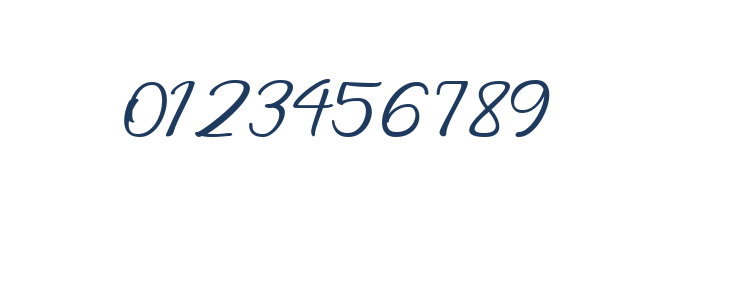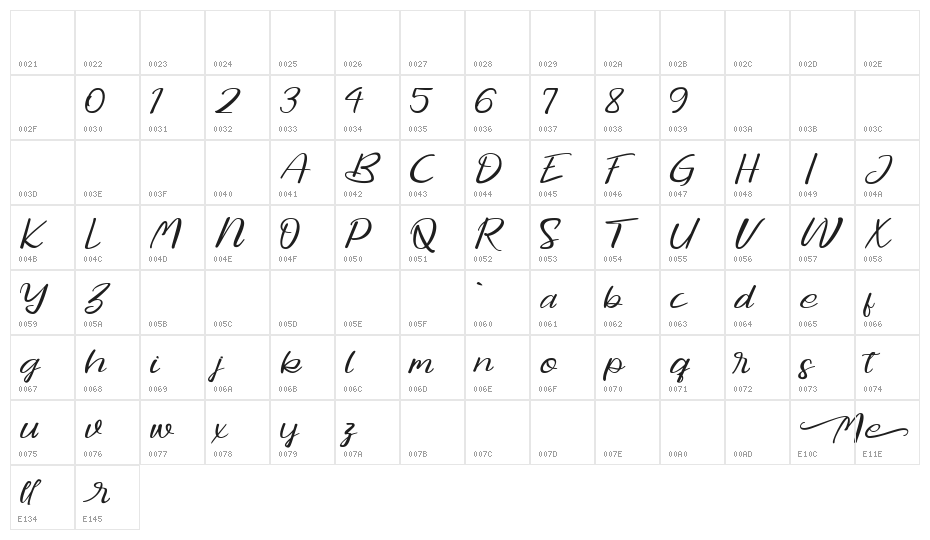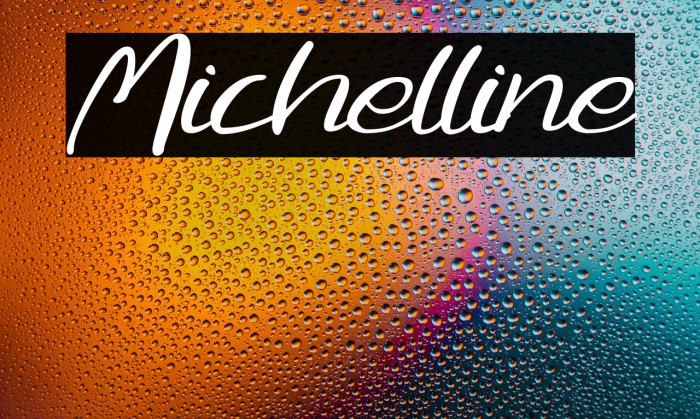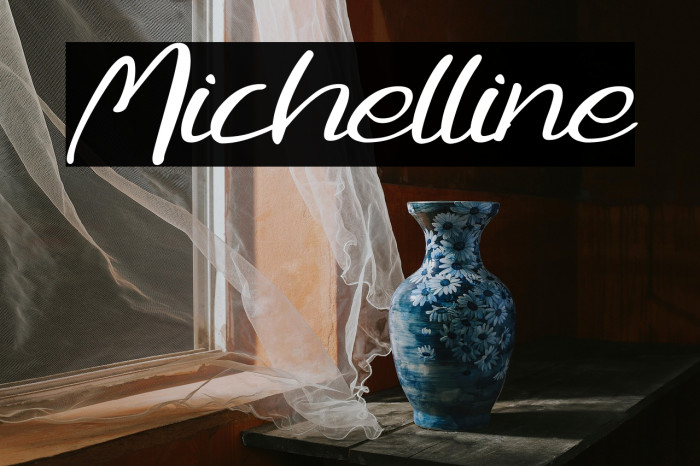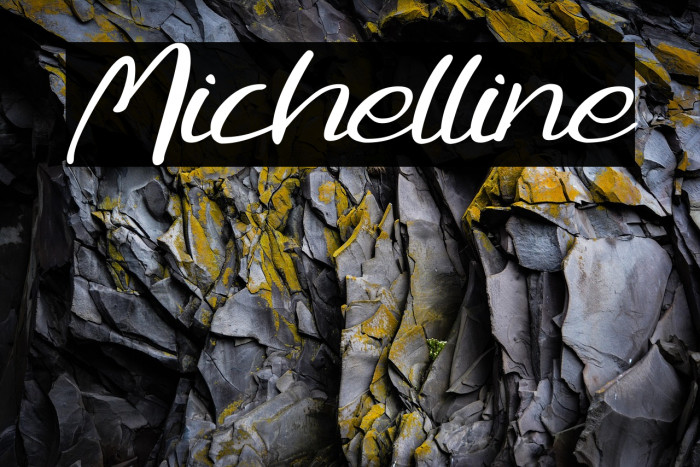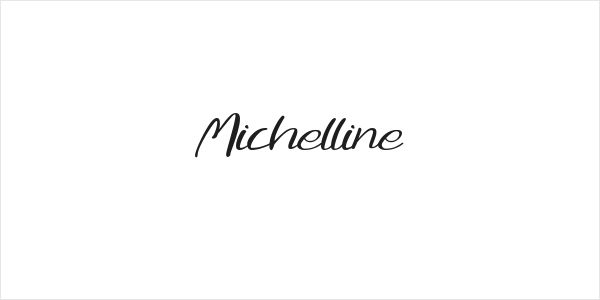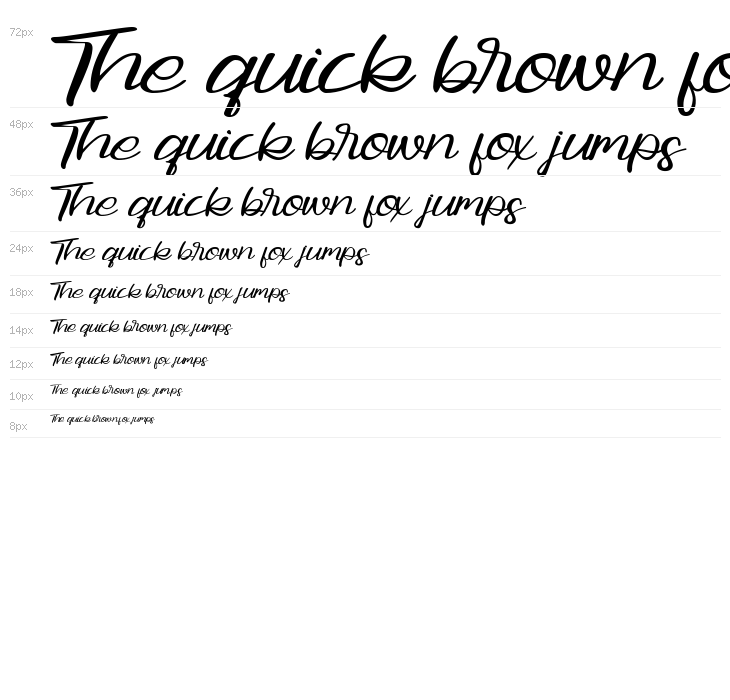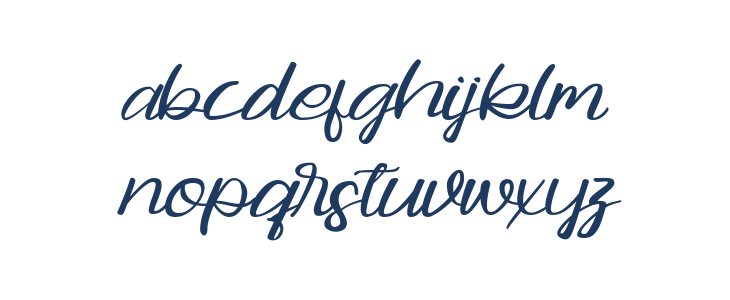
Michelline Font
Michelline Description
This elegant script font features a flowing, cursive style with smooth, connected strokes that mimic natural handwriting. The uppercase letters are slightly more elaborate, with graceful loops and swashes, while the lowercase letters maintain a consistent, fluid form. The numerals are designed to match the overall aesthetic, with a slight slant and rounded edges. This font exudes a sense of sophistication and charm, making it ideal for projects that require a personal touch.
| Overall Style | Elegant, Handwritten |
| Proposed Projects | Ideal for wedding invitations, greeting cards, personal branding, and elegant packaging designs. |